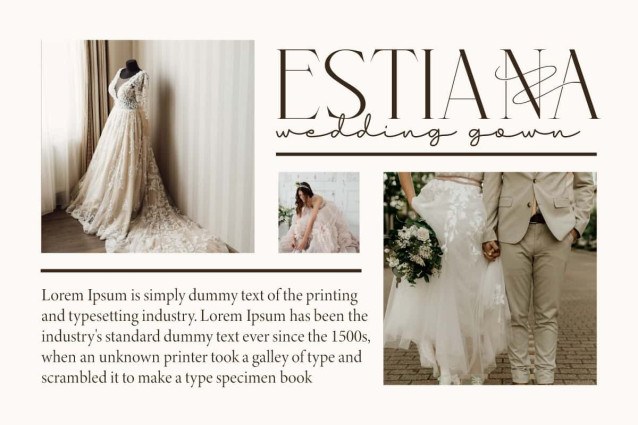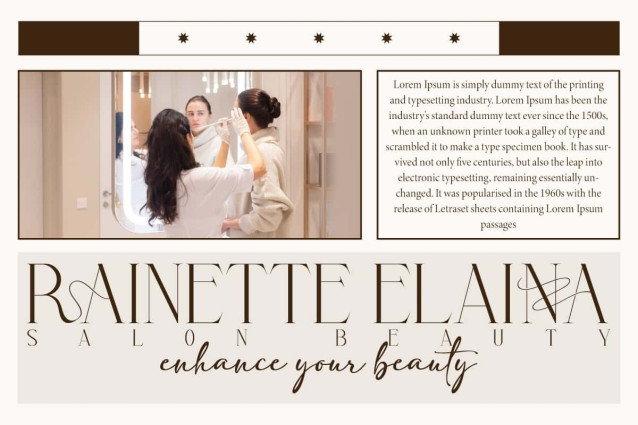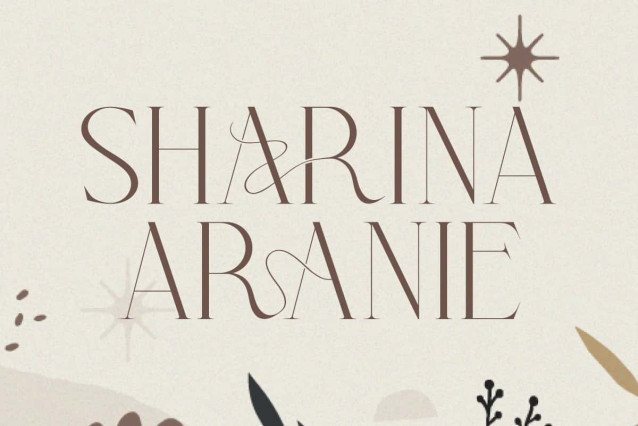
Sharina Aranie Font
Sharina Aranie Font is a serif font with an artistic touch that gives a luxury and dreamy impression. This font will be perfect for various projects, such as advertisement, blog, brand image, gift box, invitation, label, layout design, quotes, signboard, template design purpose, website, and many more.
Sharina Aranie Font includes full set of Uppercase and Lowercase Basic Characters, Numerals, Punctuation, Symbol, and Ligature character. The thin lines and dynamic curved elements create a captivating visual, making it a perfect choice for a variety of fields, such as fashion, beauty product, accessories and jewelry, cosmetic, event or wedding organizer, florist, furniture, real estate, spa salon, etc.